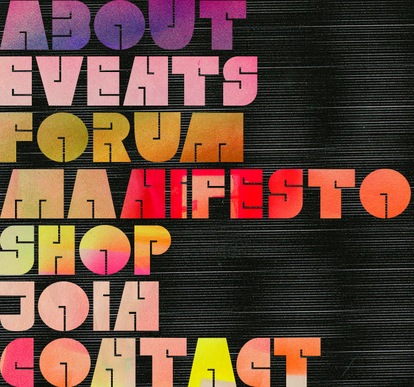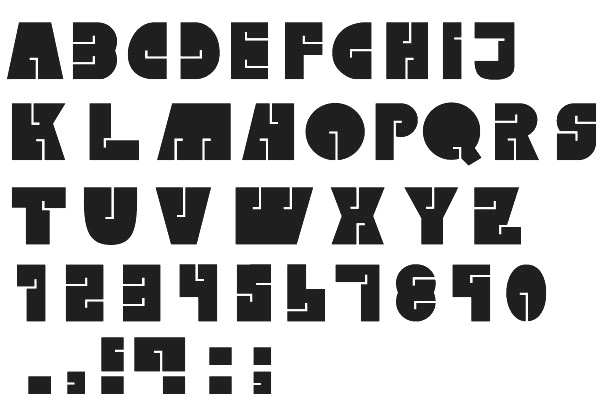
Monica Maccaux
Graphic designer, who has an MFA in Graphic Design at Otis College of Art & Design (Los Angeles) in 2012. She currently teaches graphic design at the University of Nevada, Las Vegas. Monica created a few experimental typefaces in 2012, such as String Theory, Weird (a unicase typeface done with Sybille Hagmann; some initial work was done using FontStruct), Spoked (designed for a web site to promote bicycle awareness), and Triathlon (an organic typeface for triathletes, developed for her thesis project at Otis), and Weird (2011, experimental).
In 2013, she designed Kryptonian Script for Warner Bros' Man of Steel. In 2015, she created a typeface based on strings, Two Pencil Typeface, as well as the experimental typeface Motorix.